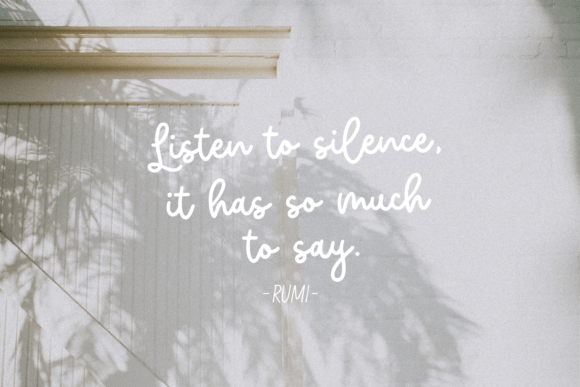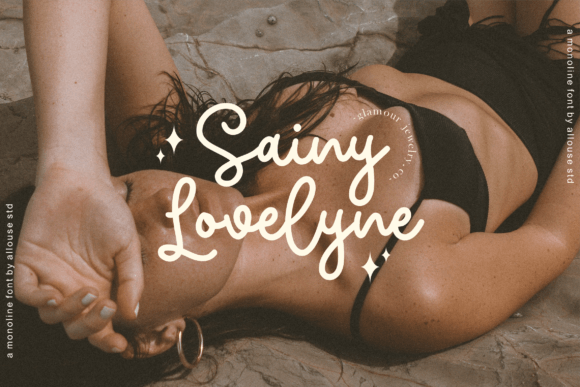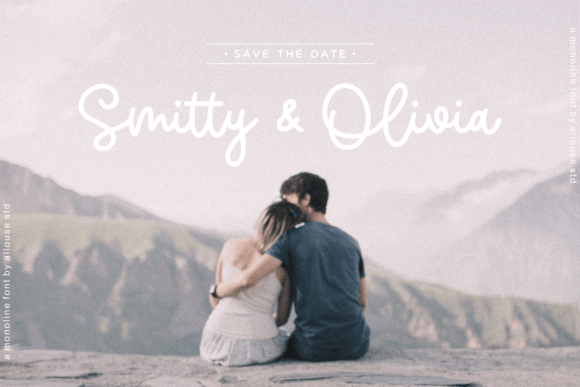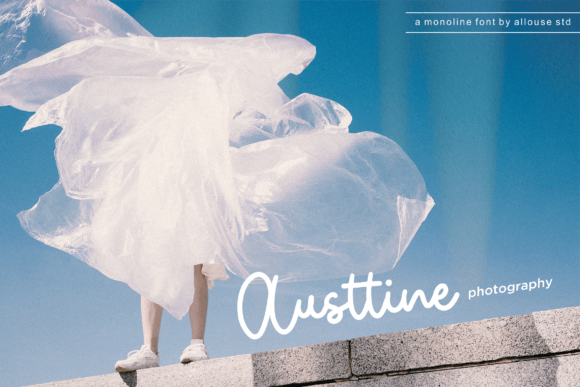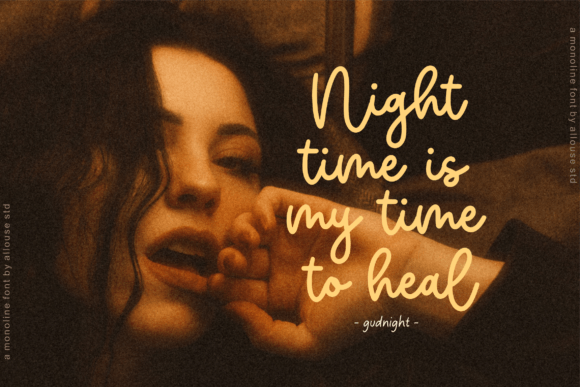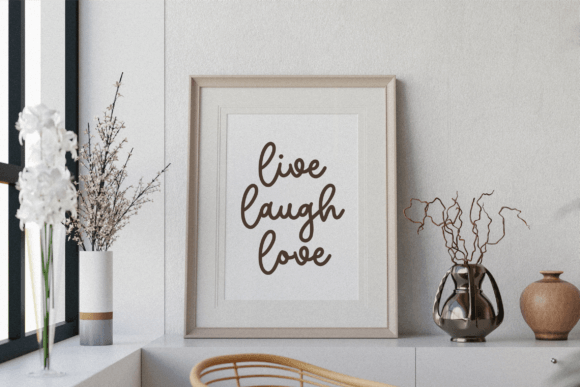
Ruseline Font Font – Free Download
Introduction to Ruseline Font Font
Fonts play a crucial role in design, and the Ruseline Font font is a typeface that brings both character and versatility to any project. Whether you’re working on a branding project, a website, or a print design, the Ruseline Font font offers a unique style that can elevate your work.
| 👤 Author | allouse.studio |
Ruseline is a script font, perfect for product packaging, branding , magazines, social media, weddings, invitations, cards, web designs and more.
Key Features of Ruseline Font Font
Why Choose Ruseline Font Font?
The Ruseline Font font is more than just a typeface – it’s a design tool that helps you communicate your message with style and clarity. Its unique character set and versatile design make it suitable for a wide range of applications, from elegant invitations to bold headlines.
With its carefully crafted letterforms and balanced proportions, the Ruseline Font font ensures readability and visual appeal across all mediums.
What makes Ruseline Font font special?
The Ruseline Font font stands out with its unique design, exceptional readability, and versatility across various design applications.